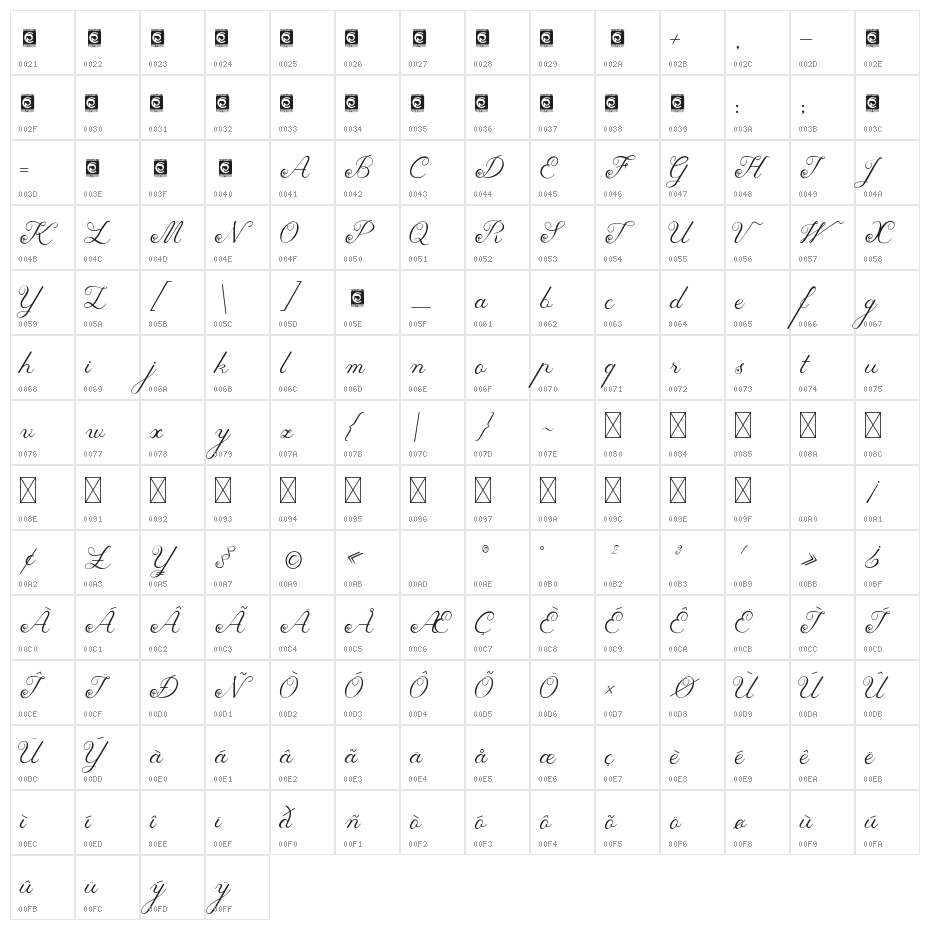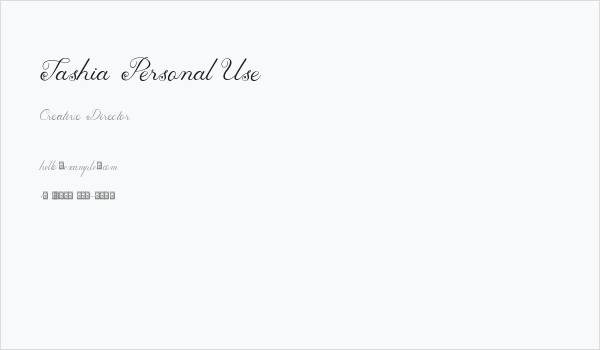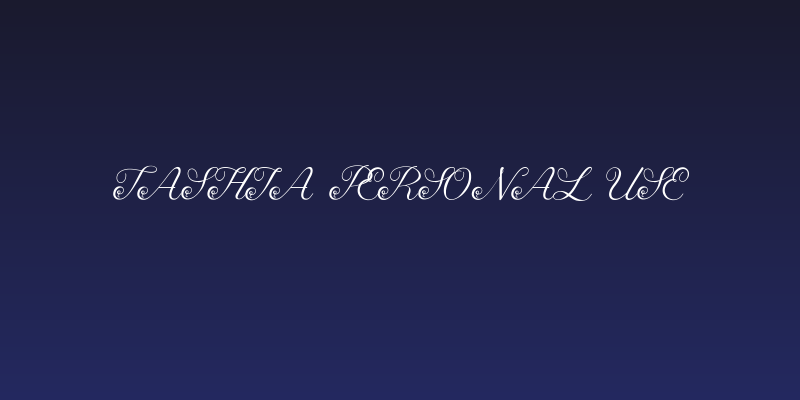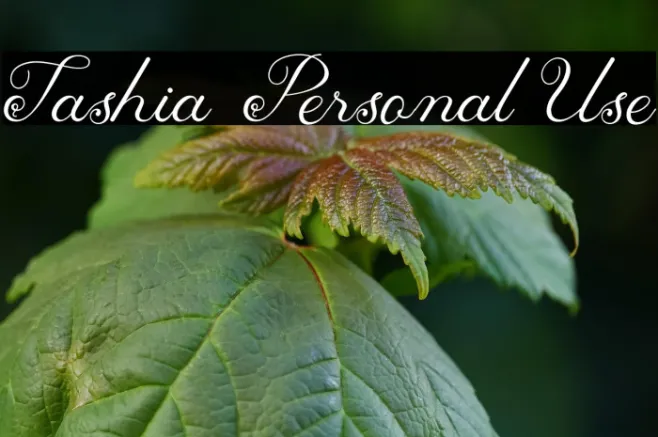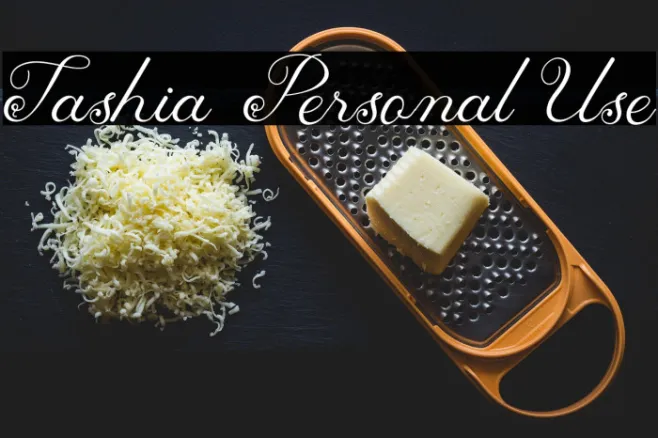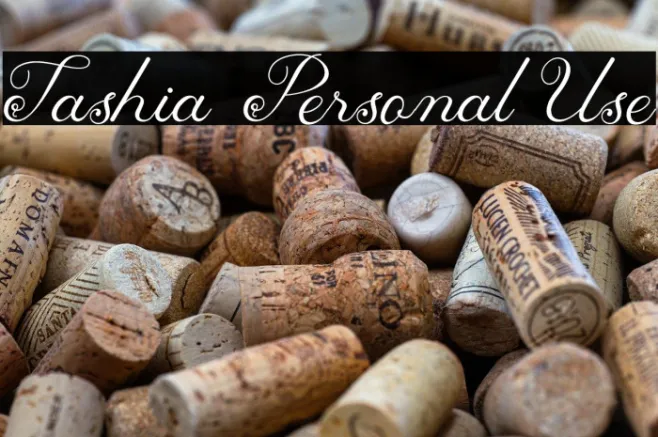
Tashia Personal Use Font
Tashia Personal Use Description
This elegant script font features a flowing, cursive style with intricate loops and swirls, giving it a sophisticated and artistic appearance. The uppercase letters are particularly ornate, with elaborate flourishes that add a touch of luxury and refinement. The lowercase letters maintain a consistent flow, enhancing readability while retaining the decorative nature of the font. The numerals and special characters are designed to complement the overall aesthetic, making this font suitable for formal and creative applications.
| Use Case | Headlines, Invitations, Branding |
| Proposed Projects | Ideal for wedding invitations, elegant branding, greeting cards, and decorative headlines. |